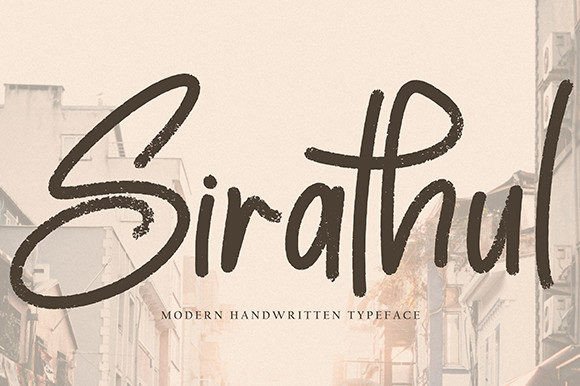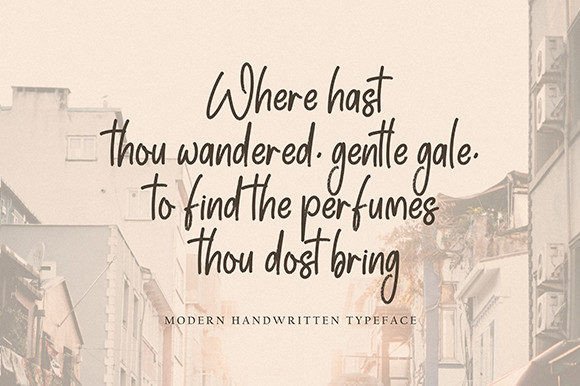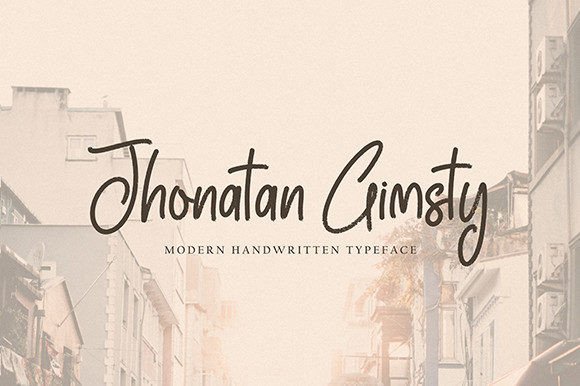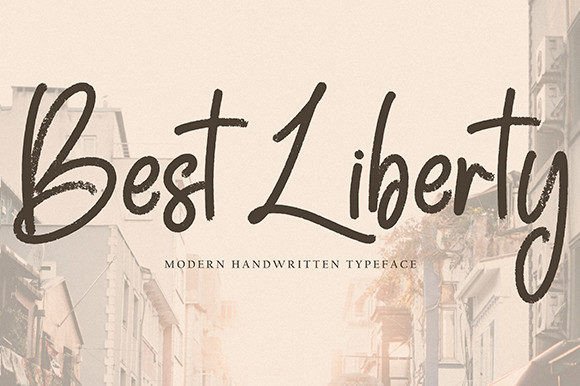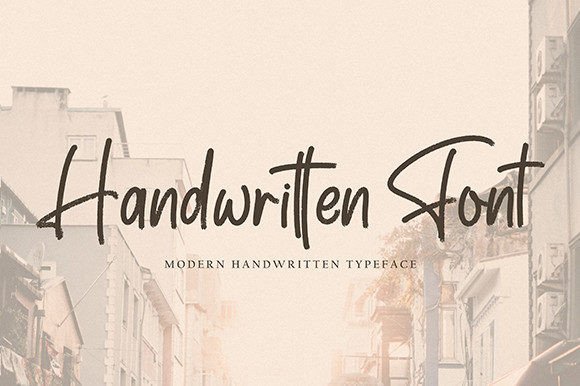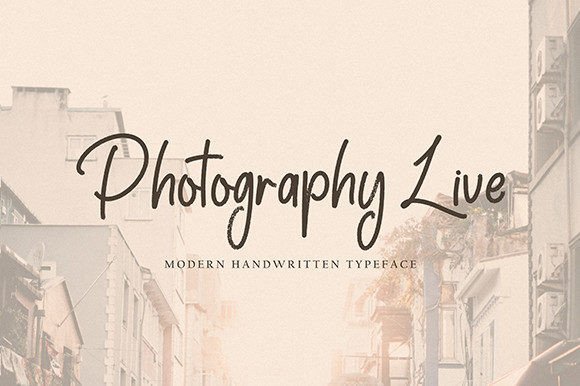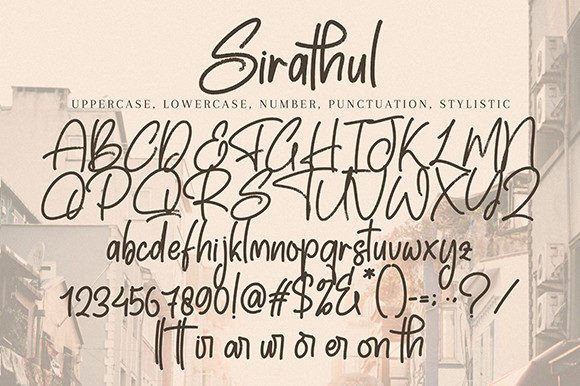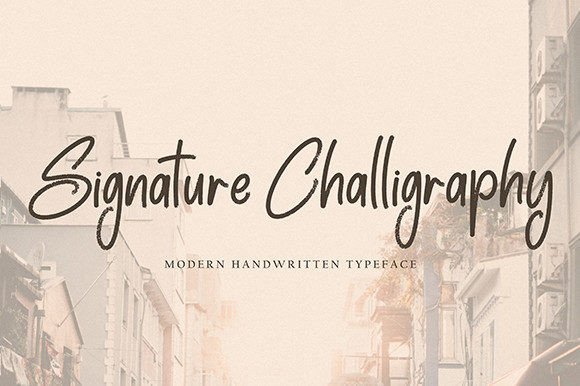
Sirathul Font
Sirathul Font Download – Modern Cool Handwritten Brush Script
The Sirathul Font download is a bold and modern handwritten brush typeface. With its strong strokes and cool flow, it is designed to give your projects a stylish and confident look. This font is perfect for both creative and professional use, making it a must-have for designers who want a modern brush style.
Modern Brush Style with Energy
Sirathul Font has thick strokes and smooth flow that create a sense of movement. As a result, your text feels dynamic and full of character. In addition, the natural brush look makes it suitable for artistic projects and bold branding.
Perfect for Invitations and Posters
From wedding invitations to bold event posters, Sirathul Font adds elegance with a modern edge. Not only does it make your words stand out, but it also creates a unique tone that works well in personal and professional projects.
Great for Logos and Branding
This font is also a strong choice for logos, labels, and product packaging. Its cool brush strokes communicate confidence and creativity. Moreover, the font adapts easily across different design platforms, from digital to print.
Adding Personality to Digital Designs
Social media banners, YouTube covers, and Instagram posts can all benefit from the bold energy of Sirathul Font. Because it combines style with clarity, it makes your content visually stronger and more engaging.
Easy to Read and Use Everywhere
While many brush fonts sacrifice readability, Sirathul Font balances clarity with design. This makes it effective for large headlines and smaller details alike. In addition, it installs quickly and works with most design software.
Why Choose This Handwritten Brush Script?
Sirathul Font is stylish, modern, and flexible. In other words, it can be used in posters, cards, branding, or digital layouts without losing its impact. Finally, it is a font that helps your creative ideas shine while staying professional.